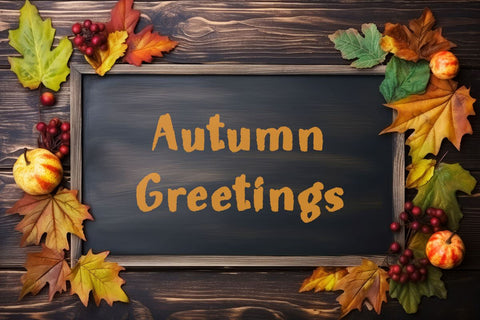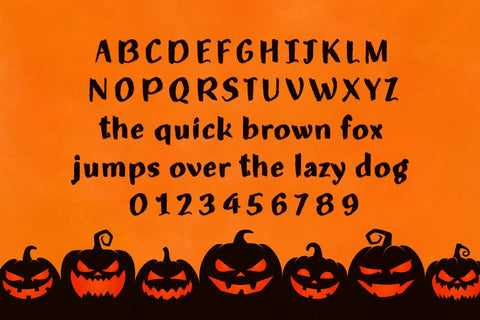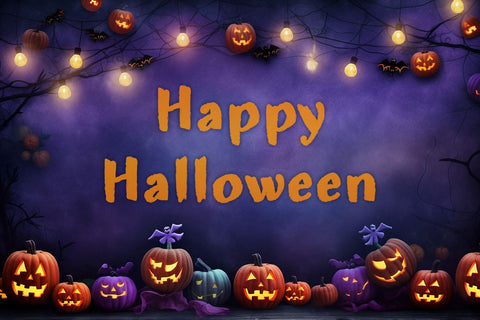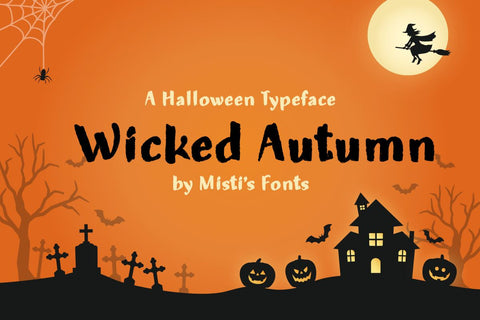
Wicked Autumn
Introducing Wicked Autumn, the perfect font for all your spooky Halloween needs! This font features a rough and edgy design that will add an extra element of fright to any project. The chalk effect gives it a unique and eerie look that is perfect for creating posters, flyers, and social media graphics for your upcoming Halloween event.